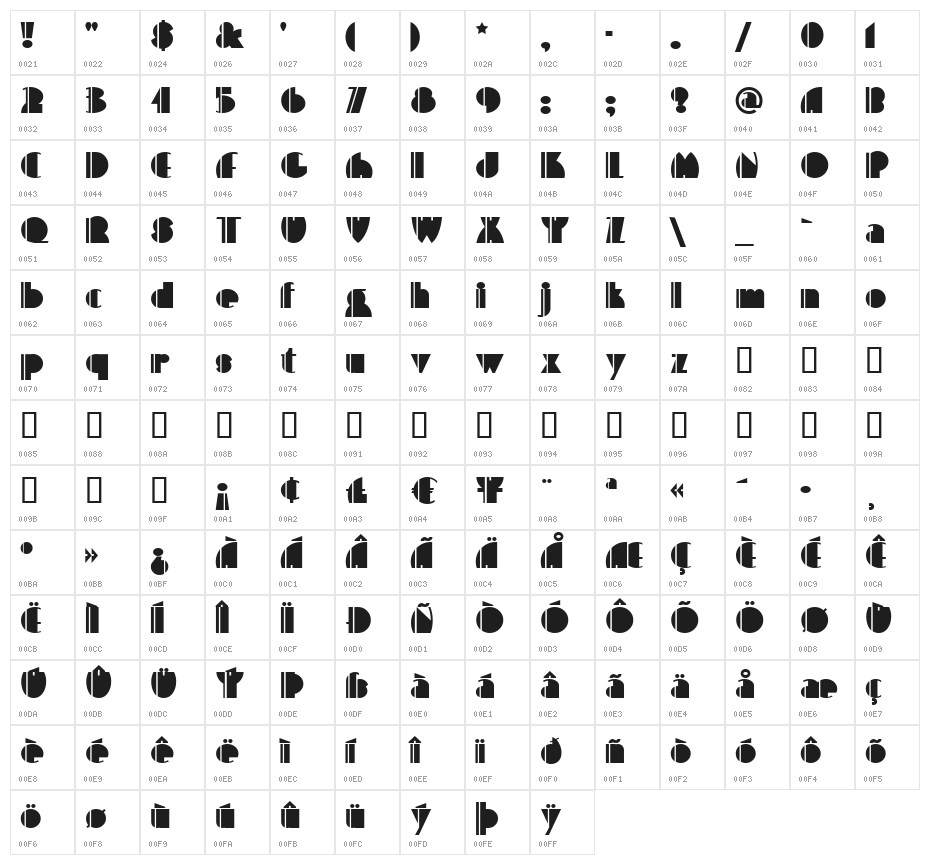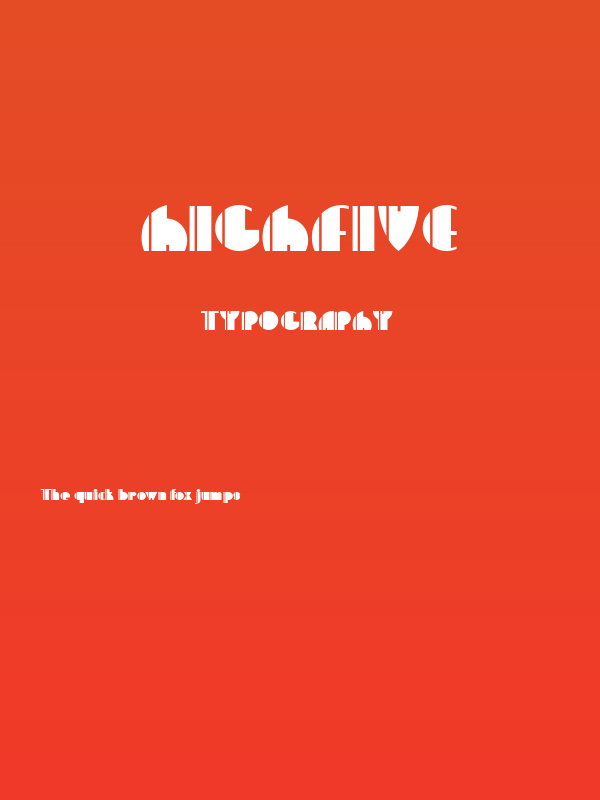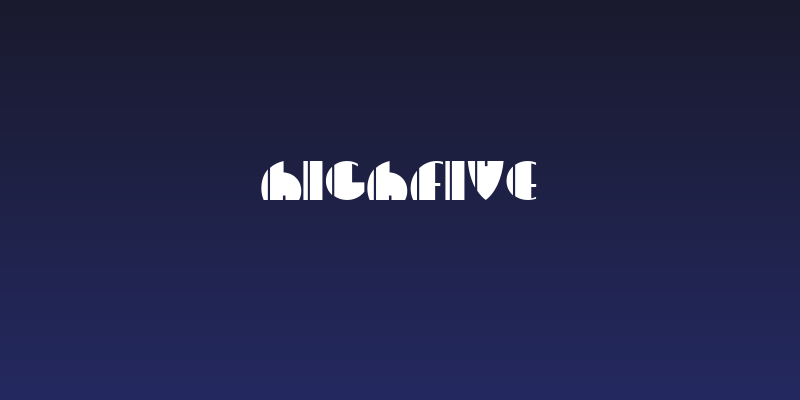
HighFive Font
HighFive Description
This font features a bold, geometric style with high contrast between thick and thin strokes. The characters are constructed with a combination of circular and angular elements, creating a unique and modern appearance. The uppercase letters are particularly striking, with a strong presence and distinctive shapes. The lowercase letters maintain the geometric theme, offering a cohesive look across the alphabet. Numbers and special characters are designed with the same boldness and creativity, making them stand out. This font is ideal for projects that require a strong visual impact and a contemporary feel.